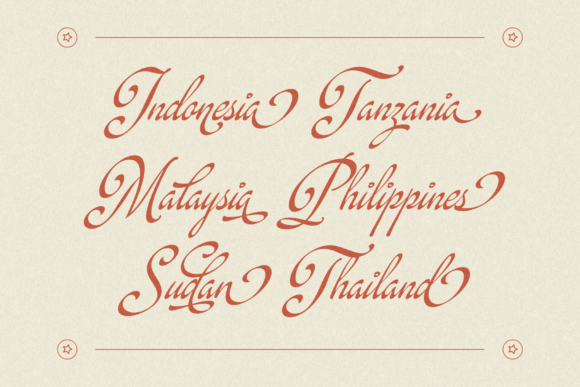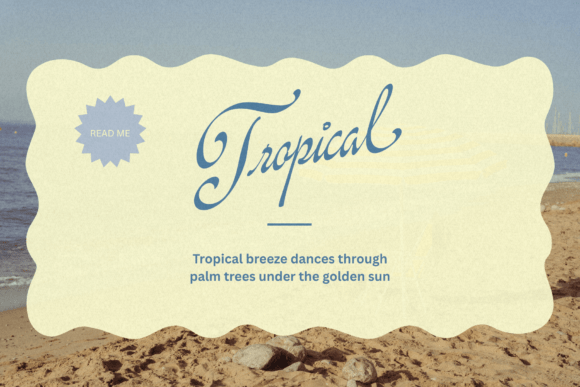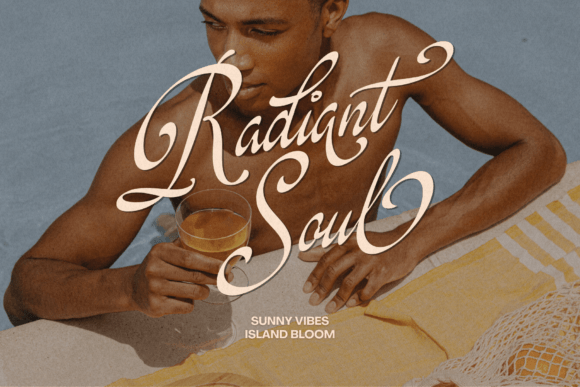
Introduction to Rinapelle Script Font Font
Fonts play a crucial role in design, and the Rinapelle Script Font font is a typeface that brings both character and versatility to any project. Whether you’re working on a branding project, a website, or a print design, the Rinapelle Script Font font offers a unique style that can elevate your work.
Rinapelle Script is a charming tribute to timeless elegance β a vintage script font that dances with grace and sophistication.
Crafted with silky-smooth curves and flowing connections, Rinapelle brings the allure of handwritten nostalgia into the modern world Whether youβre designing for luxury branding, wedding stationery, or seaside cafes, Rinapelle tells a story in every stroke.
Key Features of Rinapelle Script Font Font
Why Choose Rinapelle Script Font Font?
The Rinapelle Script Font font is more than just a typeface β it’s a design tool that helps you communicate your message with style and clarity. Its unique character set and versatile design make it suitable for a wide range of applications, from elegant invitations to bold headlines.
With its carefully crafted letterforms and balanced proportions, the Rinapelle Script Font font ensures readability and visual appeal across all mediums.
What makes Rinapelle Script Font font special?
The Rinapelle Script Font font stands out with its unique design, exceptional readability, and versatility across various design applications.